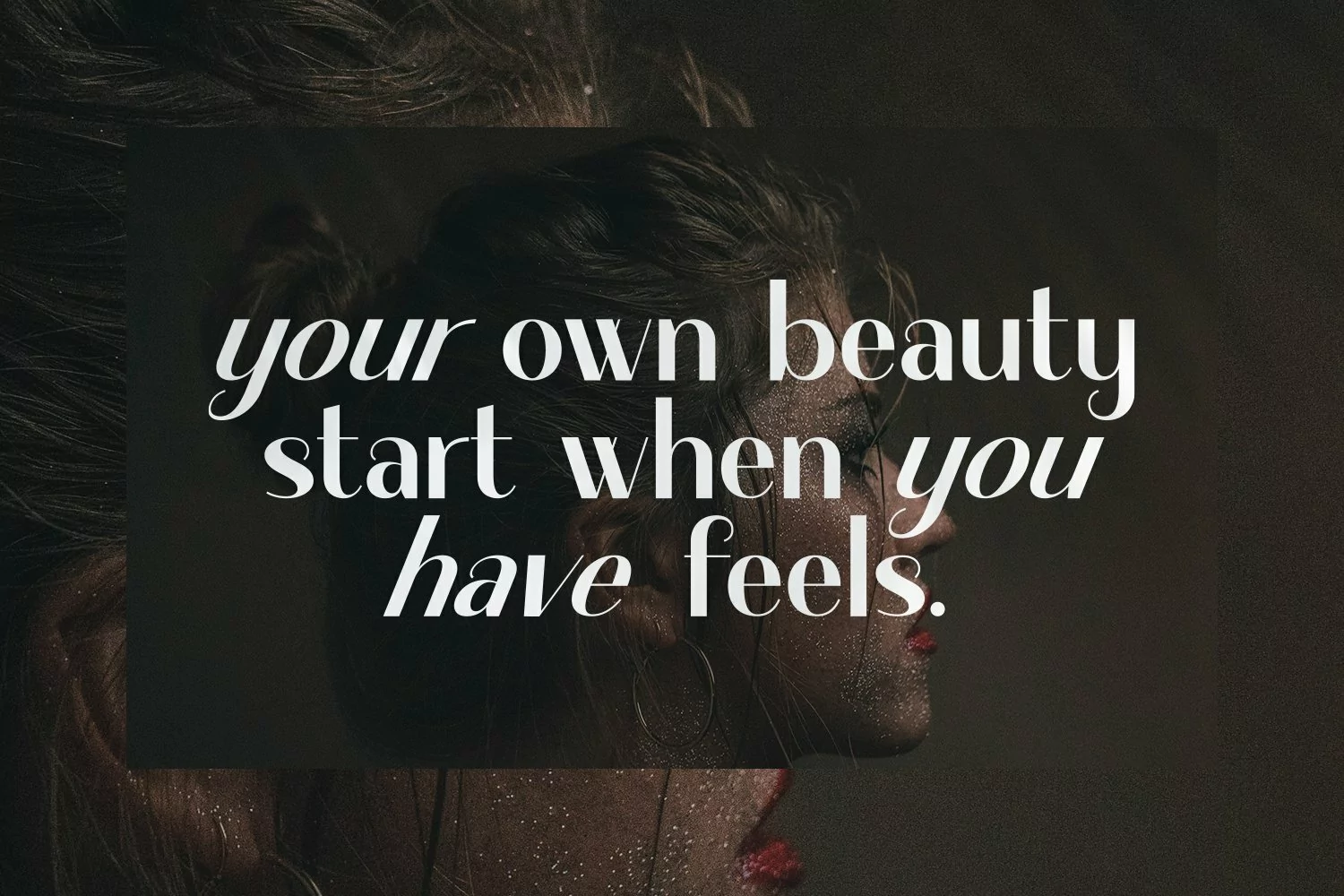
Web Font Auckish - Display Font
Web Font suitable for logotype, brand, packaging, quotes, music poster, t-shirt, cover book and more custom design. The features uppercase, lowercase, numeral, punctuation & symbol, multilingual support.